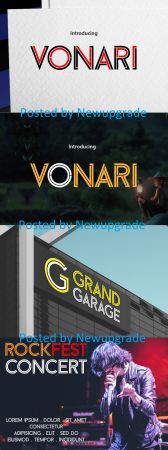
DesignOptimal - Vonari Font
VONARI is typeface with refreshing patterns against unusual things, to have charm and character and make it more elegant and exclusive. suitable to use various interests and stay adjust to your needs